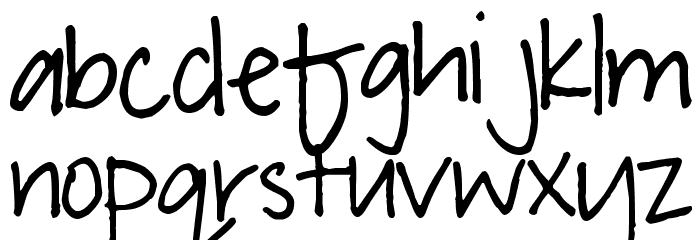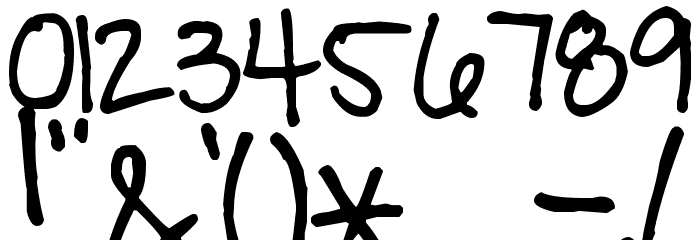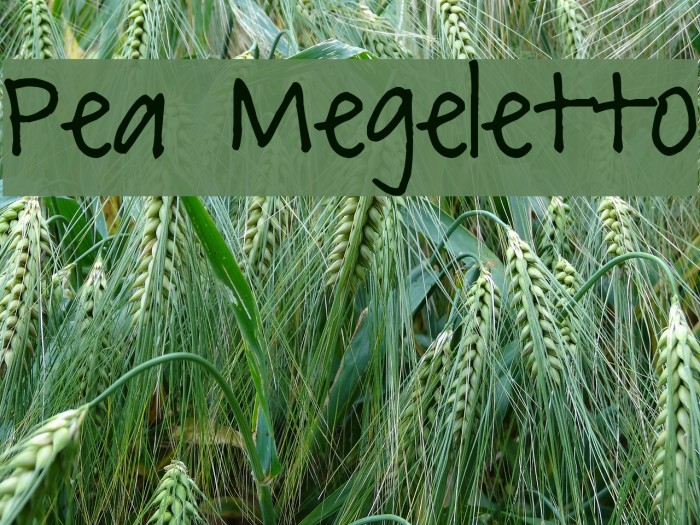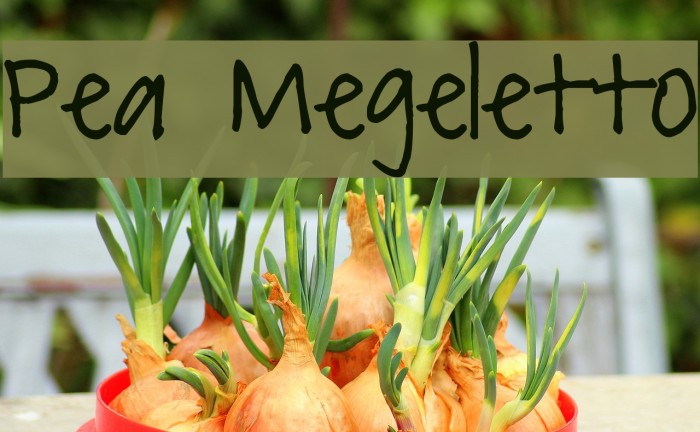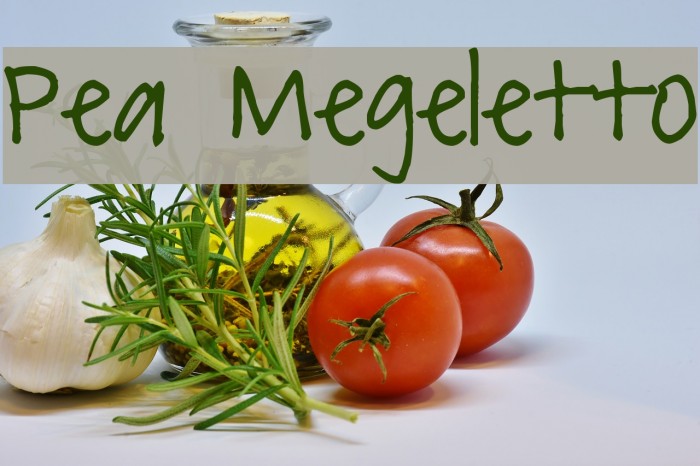
Pea Megeletto Font
This font exudes a playful and casual handwritten style, characterized by its irregular strokes and organic flow. The letters vary in size and angle, giving it a dynamic and lively appearance. The uppercase and lowercase letters maintain a consistent style, with rounded edges and a slightly uneven baseline, enhancing its informal charm. Numbers and special characters follow the same whimsical design, making it suitable for projects that require a personal touch. The overall look is approachable and friendly, ideal for creative and informal applications.
A playful, casual handwritten font with irregular strokes and a lively appearance.
- Proposed Projects: Ideal for greeting cards, children's books, personal blogs, and creative branding.
- Overall Style: Casual, Playful
- Use Case: Headlines, Informal text, Creative projects